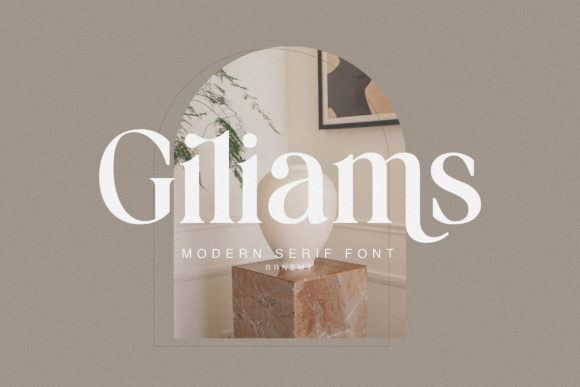
In the realm of digital art and design, fonts play a pivotal role in shaping the visual tapestry of your creations. They possess the power to elevate your messages, set the tone for your narratives, and leave a lasting impression on your audience. When embarking on a journey to find the perfect font for your presentation, allow us to introduce you to the Giliams Font, a captivating serif creation that will transform your words into an unforgettable spectacle.
Giliams stems from the rich lineage of serif fonts, distinguished by their regal presence and timeless elegance. Each letterform in this font family has been meticulously crafted, showcasing sharp serifs that dance harmoniously with its delicate curves. The result is a font that exudes both sophistication and playfulness, lending a touch of intrigue to your presentations.
As you delve into the depths of Giliams' character set, you'll discover a world of possibilities. With its wide range of weights and styles, you can effortlessly adapt this font to suit any project, from formal presentations to creative marketing campaigns. Whether you seek a classic look or a touch of whimsy, Giliams will gracefully accommodate your vision.
Imagine your words dancing across the screen, adorned with the refined elegance of Giliams. Your audience will be captivated by the visual delight of your presentation as they effortlessly absorb the information you convey. With Giliams as your typographic companion, you'll leave a lasting impression that resonates long after your presentation concludes.
Step into the spotlight with Giliams, the font tailored to make your presentations shine. Its distinctive charm will captivate your audience, leaving them entranced by your message. Unleash your creativity and watch as your words transform into an enchanting display of elegance and allure. Join the ranks of those who have harnessed the power of Giliams and witnessed the transformative impact it has on their presentations.
With Giliams by your side, you'll unlock a new level of confidence and poise as you deliver your message. Let your words dance across the screen, leaving a trail of beauty and inspiration in their wake. Prepare to captivate, inspire, and leave a lasting legacy with Giliams Font, your trusty companion in the world of presentations.